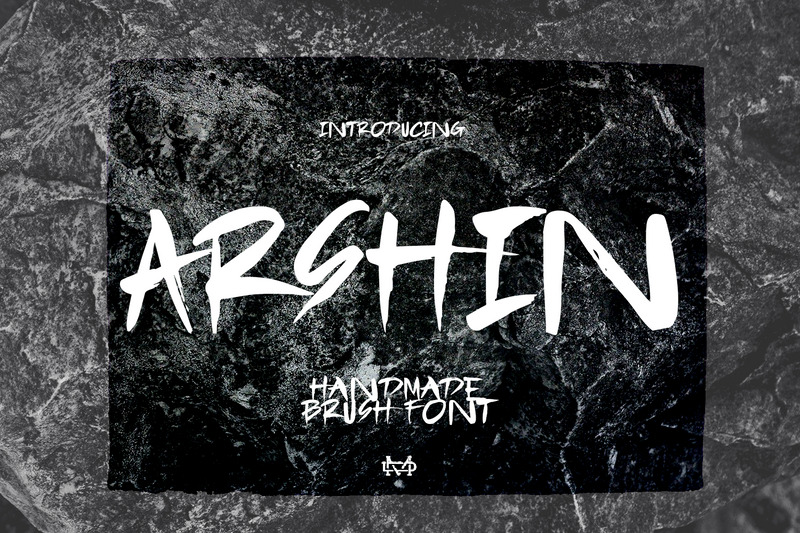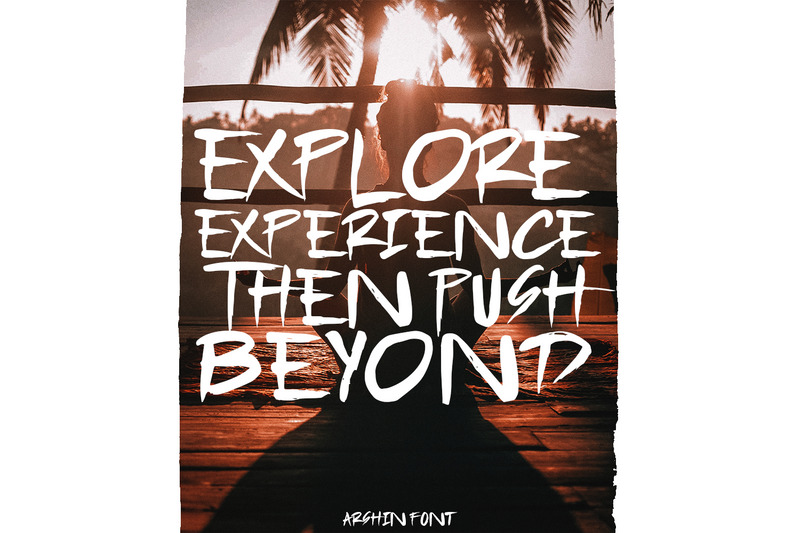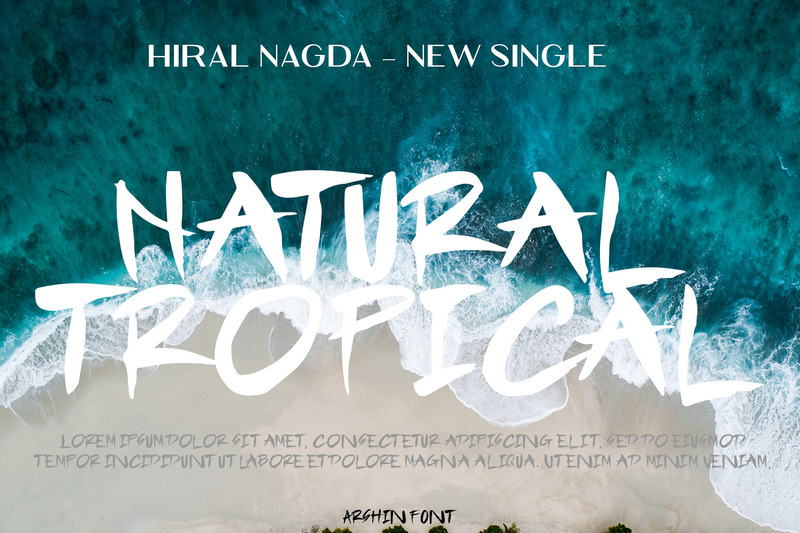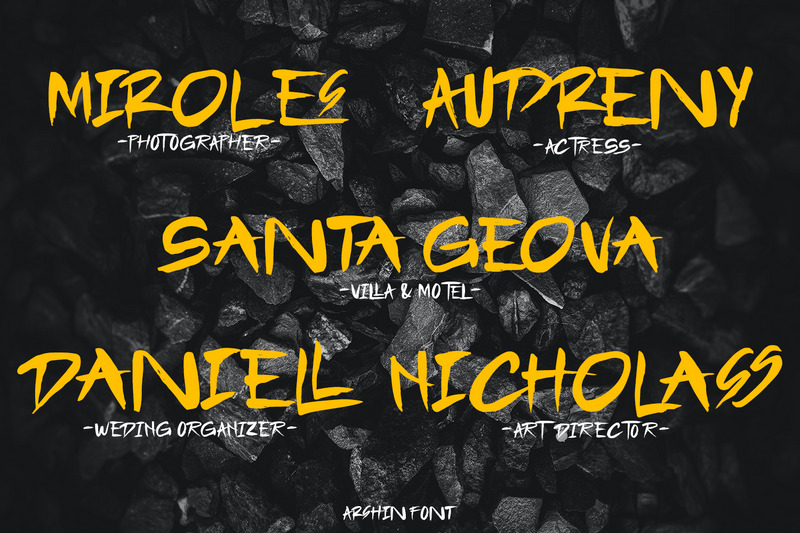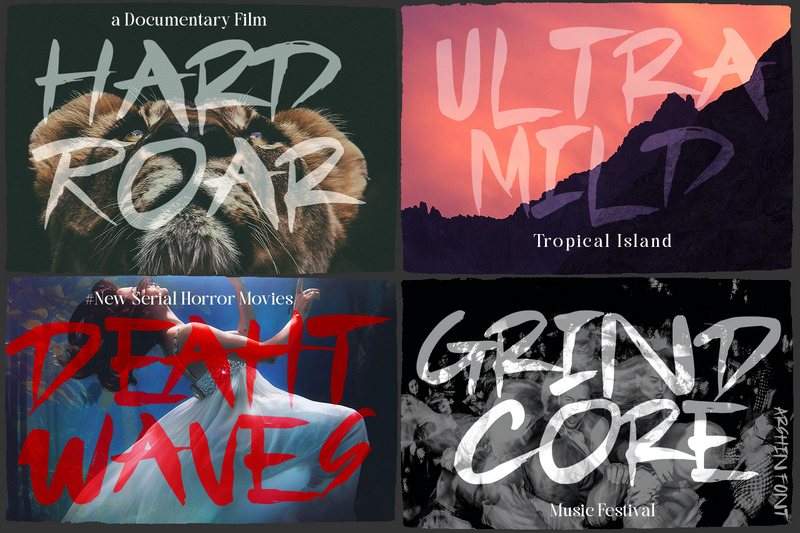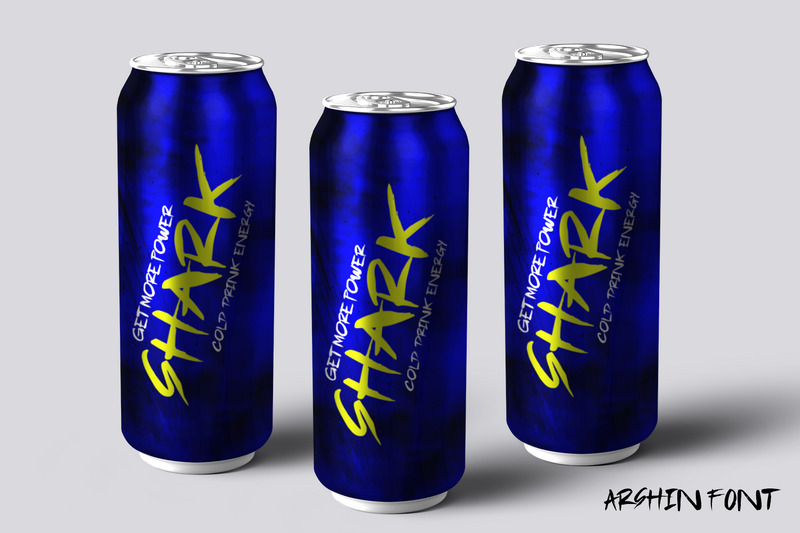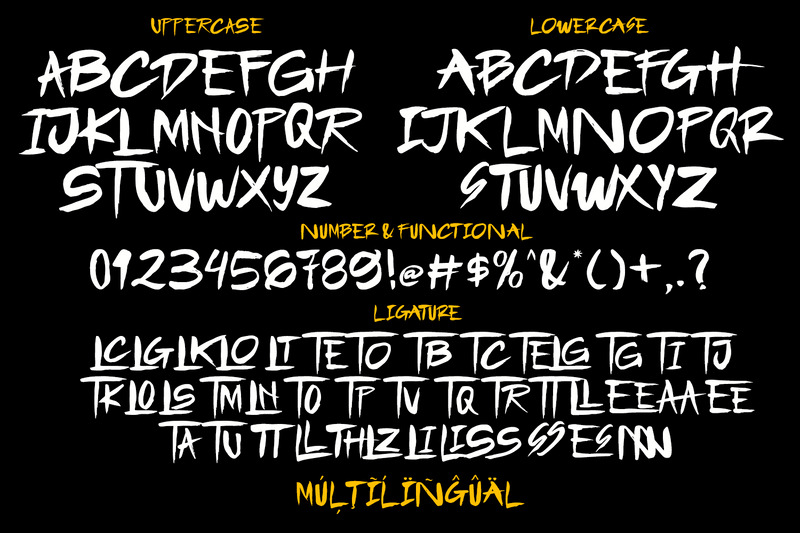
Arshin Handmade Brush Font
Arshin is a Handmade Brush Font. This font perfect for poster design, book covers, merchandise, fashion campaigns, newsletters, branding, advertising, magazines, greeting cards, album covers, and quote designs and more.
Feature
- Uppercase & Lowercase
- Number & Symbol
- International Glyphs
- Multilingual support
- ligature